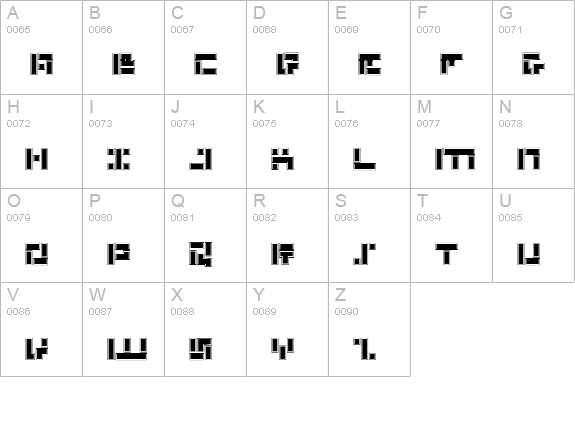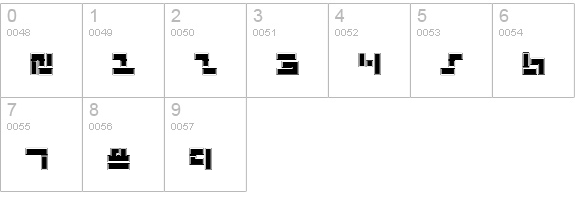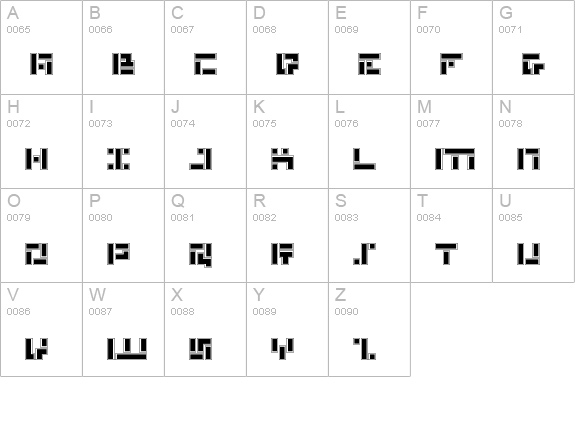
Introducing Missile Man Pro font, a versatile and dynamic typeface designed for modern and sleek designs. This unique font features sharp edges and bold strokes that make a powerful statement in any project. Whether you're working on branding, posters, or digital designs, Missile Man Pro is sure to capture attention and leave a lasting impression. What's even better is that Missile Man Pro font is available for free download at FontsMarket.com. This means you can easily access this professional and eye-catching font without any cost. Don't miss out on the opportunity to enhance your designs with the striking Missile Man Pro font - download it for free today!